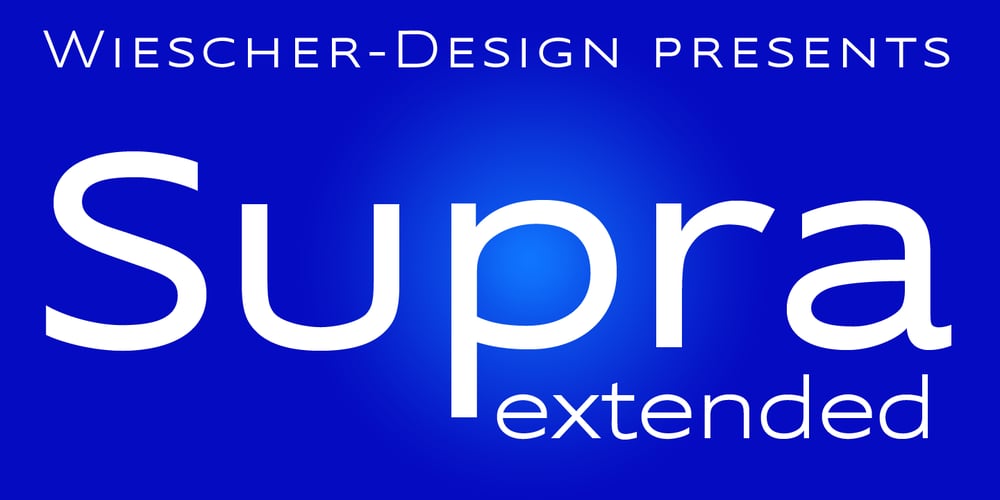
Supra Extended Font Family was designed by Gert Wiescher and published by Wiescher Design. Supra Extended contains 8 styles and family package options. Supra Extended – designed by Gert Wiescher in 2013 – is the extended version to this new sans typeface family of eight weights. The extended version is designed for sheer elegance and has no italics because they didn’t look nice to me. The light and normal weights and the dominant x-height with its high ascenders make for easy reading of long copy. The heavy and x-light weights are great for elegant headlines. Supra is an OpenType family for professional typography with an extended character set of over 700 glyphs. It supports more than 40 Central- and Eastern-European as well as many Western languages. Ligatures, different figures, fractions, currency symbols and smallcaps can be found in all cuts.